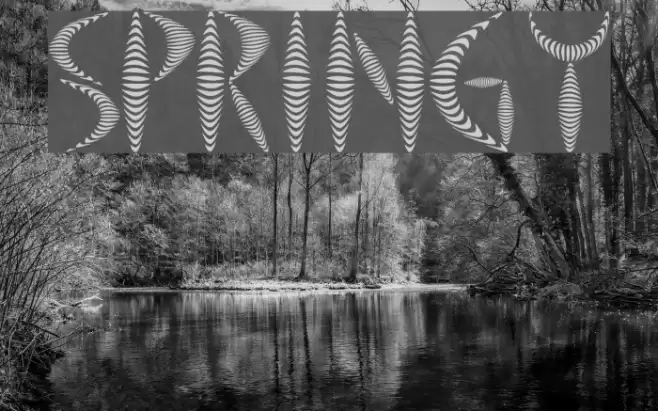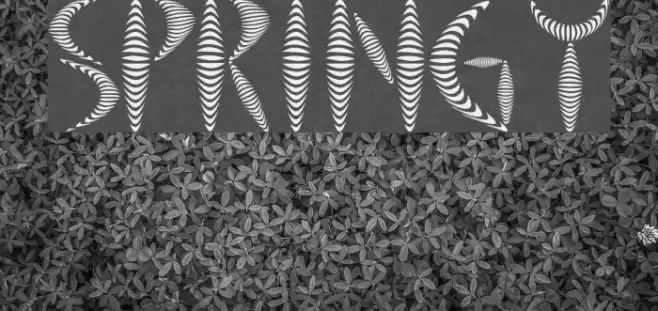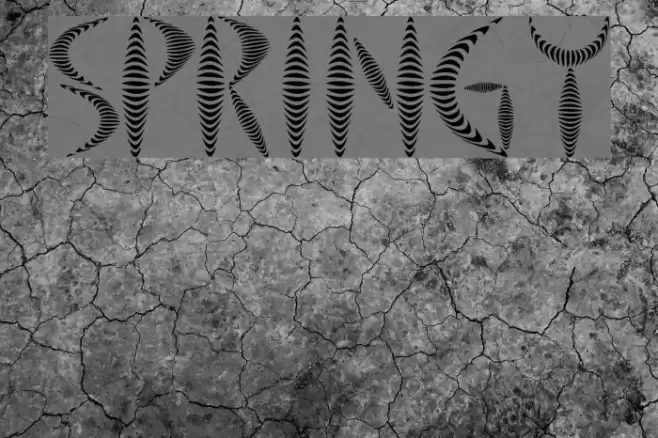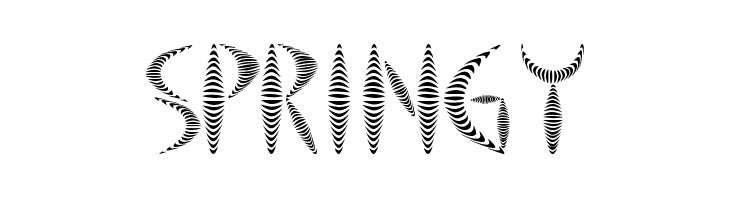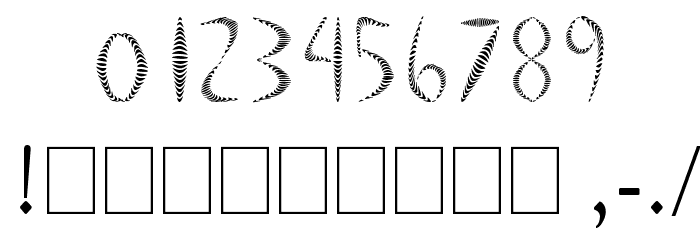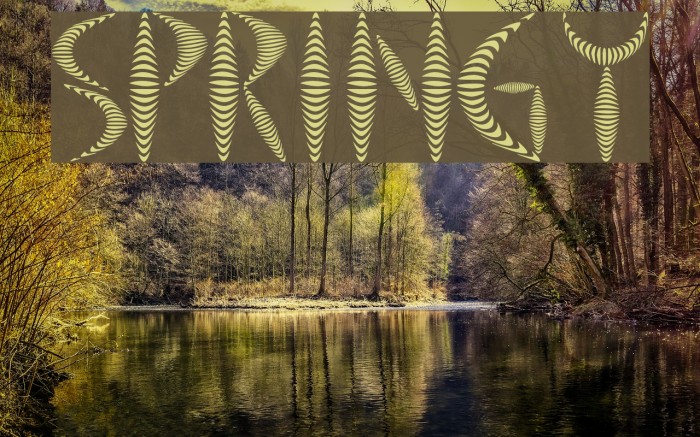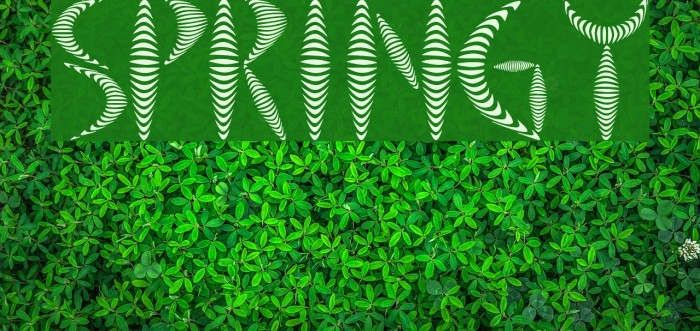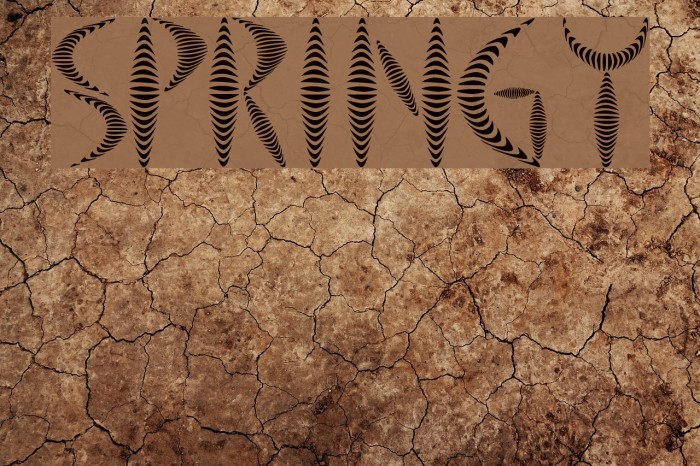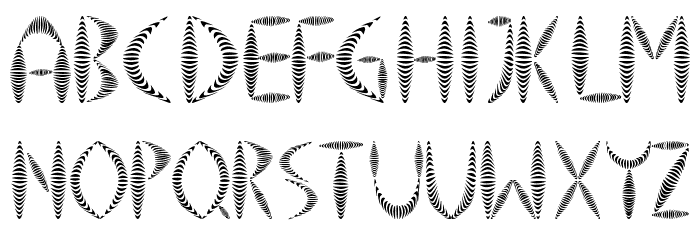
Springy Font
Springy Description
This font features a unique and playful design with a spring-like, wavy pattern that runs through each character. The letters are composed of a series of parallel lines that create a dynamic, three-dimensional effect, making the font appear as if it's vibrating or pulsating. The overall look is both modern and whimsical, perfect for projects that require a touch of creativity and fun. The characters maintain a consistent width, and the spacing between them is normal, ensuring readability despite the intricate design. This font is ideal for eye-catching headlines, posters, and creative branding projects.
A playful, wavy font with a spring-like, dynamic design from Decorative fonts.
- Proposed Projects: Ideal for creative branding, eye-catching headlines, posters, and playful design projects.
- Overall Style: Modern, Whimsical
- Use Case: Headlines, Posters, Creative Branding